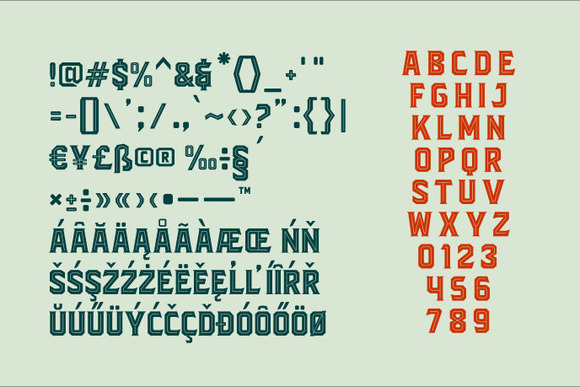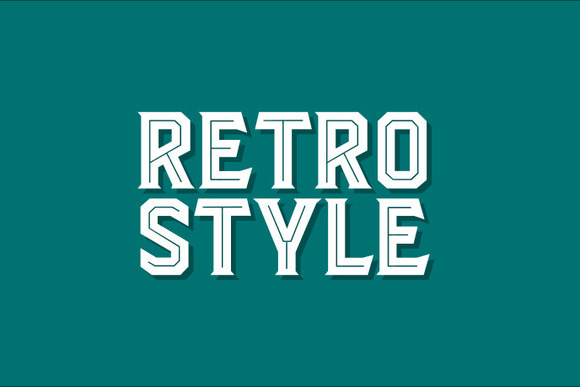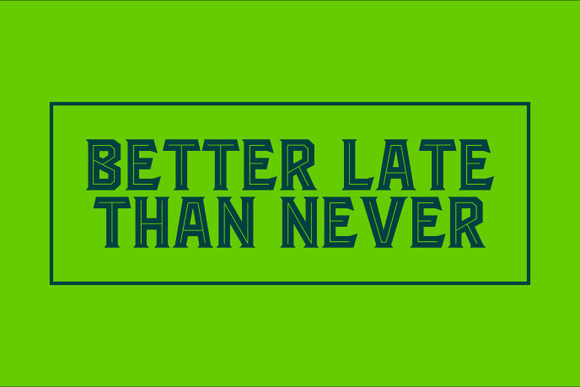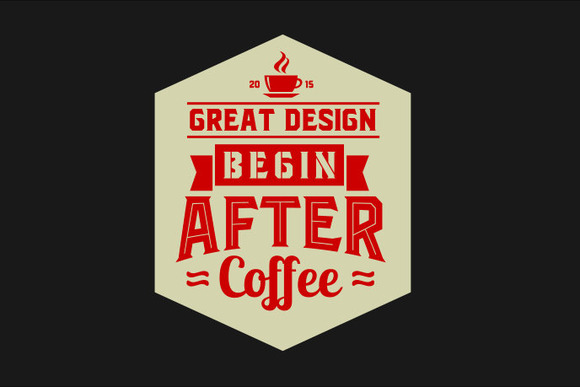
Introducing Blacktroops Inline Font: Elevate Your Designs with a Unique Style
For designers and crafters looking to add a distinctive touch to their projects, the Blacktroops Inline Font is an exciting addition to the Blacktroops family. This inline version offers a complete character set, making it versatile and ready to use for a wide range of creative endeavors. In this article, we’ll dive into the features, benefits, and uses of the Blacktroops Inline Font, exploring how it can enhance your designs and streamline your workflow.
What is Blacktroops Inline Font?
Blacktroops Inline Font is the inline version of the popular Blacktroops family. It retains the essence and characteristics that made its predecessor a favorite among designers but presents it in a sleek, inline style. This font is designed to offer a unique aesthetic that can add depth and personality to any project, from digital content to print materials.
Key Features of Blacktroops Inline Font
- Complete Character Set: One of the standout features of the Blacktroops Inline Font is its comprehensive character set. This ensures that you have access to a wide range of letters, symbols, and glyphs, making it suitable for various languages and design requirements.
- Inline Style: The inline style of this font adds a modern and sophisticated look to your designs. It’s perfect for creating visually appealing headings, titles, and text elements that stand out.
- Versatility: The Blacktroops Inline Font is incredibly versatile. It can be used in a variety of contexts, from fashion and beauty to technology and education, making it a valuable addition to any designer’s toolkit.
- Easy to Read: Despite its unique style, the Blacktroops Inline Font maintains readability, ensuring that your message is conveyed clearly and effectively.
The Blacktroops Inline Font offers several benefits for designers and crafters:
- Unique Aesthetic: It provides a distinctive style that can help your designs stand out in a crowded marketplace.
- Time-Saving: With its complete character set, you can work more efficiently, saving time that would otherwise be spent on customizing and troubleshooting.
- Customization: The inline style of the font allows for easy customization. You can experiment with different colors, sizes, and effects to match your brand’s voice and aesthetic.
The Blacktroops Inline Font is a powerful tool for designers and crafters looking to add a unique and modern touch to their work. With its complete character set, inline style, and versatility, it’s poised to become a go-to choice for a wide range of creative projects. Whether you’re working on a branding campaign, crafting a website, or creating print materials, this font offers the flexibility and aesthetic appeal you need to elevate your designs.